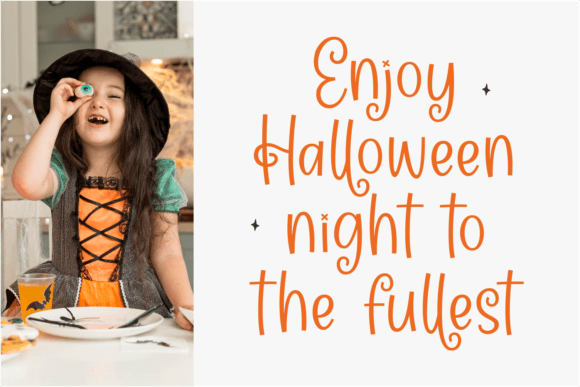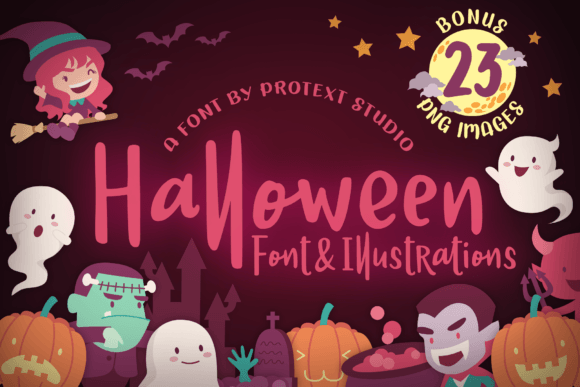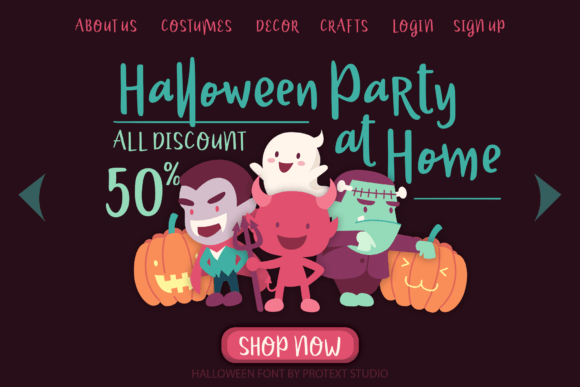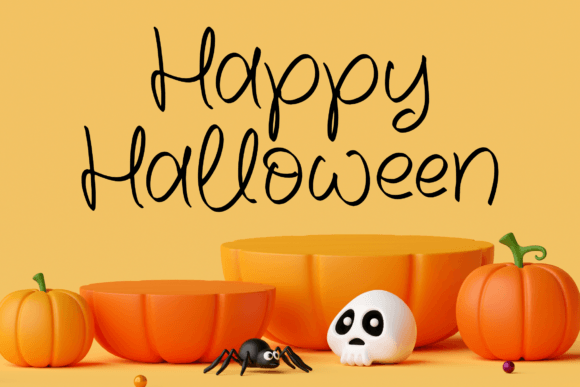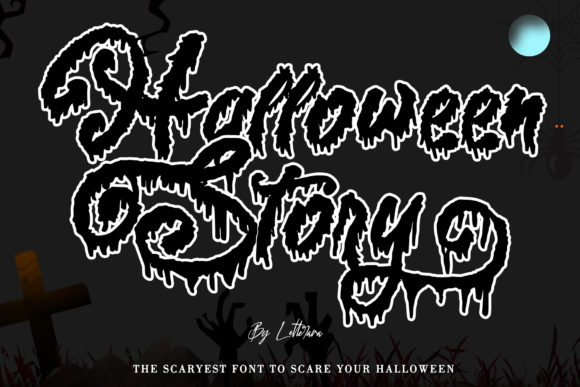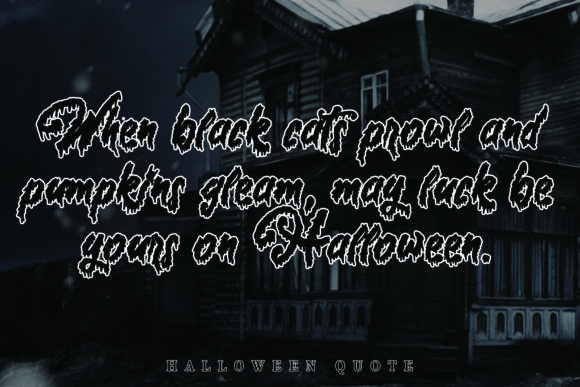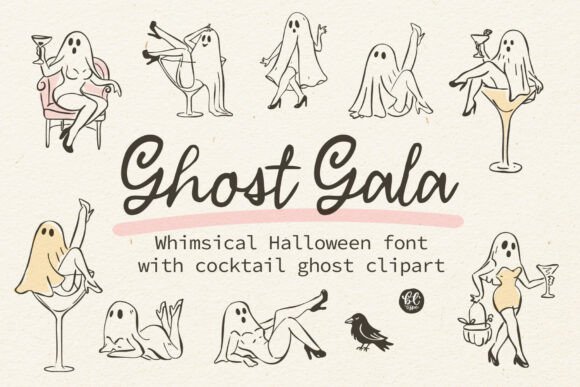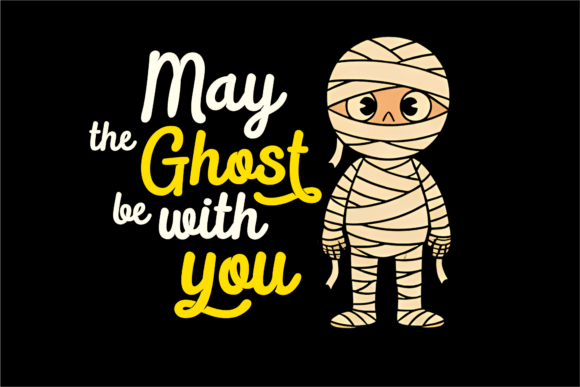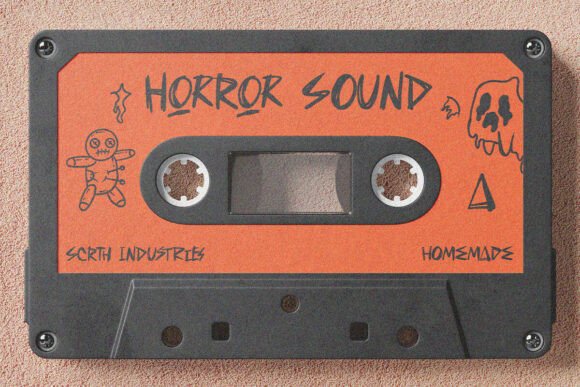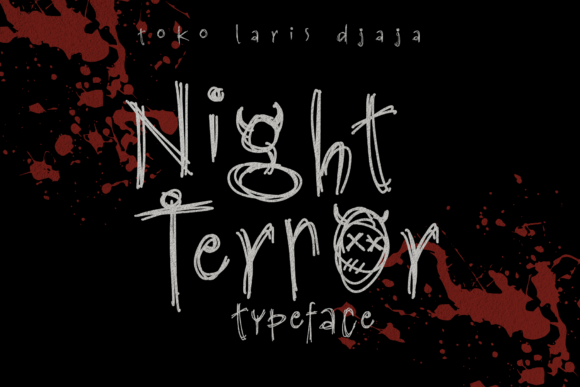
17 Best Halloween Script Fonts for Spooky, Handwritten Charm
Grab your broom and settle in, because I’ve rounded up the 17 best Halloween script fonts to bewitch your next spooky creation. From flowing ghostly cursives to eerie hand-scratched horror styles, this collection has a little bit of magic for every kind of Halloween project. So let’s brew up some creative chaos and dive into these deliciously dark typefaces together!
Beastly Halloween Font
Vintage charm meets seasonal spook in Beastly Halloween, a font that instantly transports me back to 1950s Halloween cartoons and candy packaging. This Halloween script font combines bold, hand-drawn curves with playful swashes, blending mid-century lettering elegance with a touch of cartoonish mischief for a warm, approachable feel.
I especially love how it balances festive fun without ever tipping into anything scary, making it perfect for retro party invitations, trick-or-treat bag designs, and children’s Halloween book titles. With PUA encoding for effortless glyph access, this font brings that classic, family-friendly Halloween spirit to any seasonal project.
Spooky Halloween Font
Raw and authentic, Spooky Halloween feels like it was written by candlelight in the middle of a foggy, moonlit forest. This Halloween script font carries genuine brushstroke texture in every letter, capturing that eerie, mysterious atmosphere without relying on heavy graphics or over-the-top details.
It’s a beautiful pick for chilling posters and invitations that need just a whisper of the supernatural rather than anything overtly gory. Whether you’re designing for a Halloween event or simply want to add a touch of creepy elegance to your work, this font delivers that ghostly charm effortlessly.
Dancing Halloween Font
Bouncy and full of movement, Dancing Halloween lives up to its name with playful, wavy letters that genuinely seem to sway across the page. This Halloween script font brings a lighthearted, magical energy to seasonal designs, mixing whimsy with just enough creepiness to keep things festively fun.
It’s a wonderful choice for Halloween projects that want to feel joyful rather than dark, giving designs a unique, animated flair. Whether it’s for party graphics or festive branding, this font adds a fun, dancing touch that’s hard not to smile at.
Halloween Font
Cute meets casual in this Halloween Font, a handwritten style that feels effortlessly adaptable to whatever project comes its way. This Halloween script font has a relaxed, friendly charm, making it easy to fall in love with as it moves seamlessly between spooky and cheerful design needs.
A nice bonus here is that this download includes 23 PNG illustration images alongside the font itself, giving you even more creative material to work with right out of the gate. Being PUA encoded also means all the glyphs and ligatures are easy to access, making this a genuinely versatile pick for Halloween projects.
Halloween Elegance Font
Beauty and a touch of unease come together nicely in Halloween Elegance, a cursive script that stays graceful even when it dips into something slightly sinister. This Halloween script font keeps its lowercase flowing and refined, while the uppercase letters bring in just enough eerie edge to remind you it’s still a Halloween font at heart.
It’s a lovely option for designs that want sophistication without losing that seasonal spookiness, whether that’s elegant invitations or stylish seasonal branding. Simple as its concept is, this font strikes a graceful balance between elegant and slightly scary.
Halloween is Coming Font
Fluid and effortlessly cursive, Halloween Is Coming captures that cozy, autumn-evening feeling with every flowing letter. This Halloween script font has a distinct, timeless quality to it, giving off a warm, handwritten charm that feels just as inviting as it does festively spooky.
It’s easy to fall for its versatile style, whether you’re designing seasonal greeting cards or cozy fall-themed graphics. Simple yet memorable, this font brings a genuinely spectacular touch to any Halloween project that calls for a softer, more personal feel.
Halloween Movie Font
Clean and modern, Halloween Movie stands out with a slightly quirky handwritten style that feels fresh rather than traditional. This Halloween script font keeps things simple, giving each letter a distinct, rounded personality that works well without overcomplicating the design.
It’s a great pick for Halloween-themed projects that want something a little different from the usual spooky scripts, offering plenty of room to get creative. Straightforward yet unique, this font proves that simplicity can still leave a lasting impression.
October Halloween Font
Bright and cheerful, October Halloween brings a sunny, playful energy that feels more festive fall than spooky season. This Halloween script font has a whimsical, bouncy quality to its handwriting, adding a light and cheerful mood to whatever design it touches.
It’s a great fit for projects that want a touch of mysterious elegance, like Day of the Dead-inspired branding or masquerade-themed event graphics. Uniquely stylish and full of character, this font brings a captivating, dramatic edge to any Halloween creation.